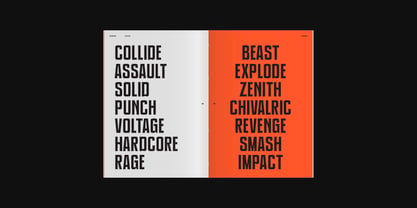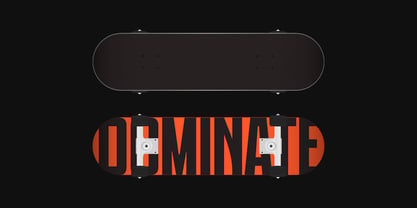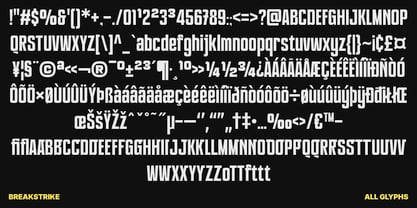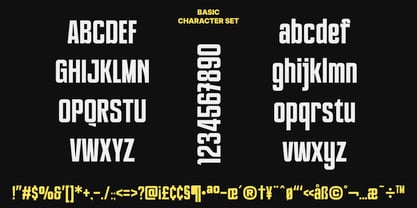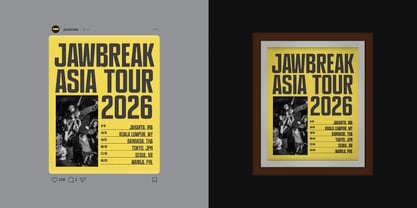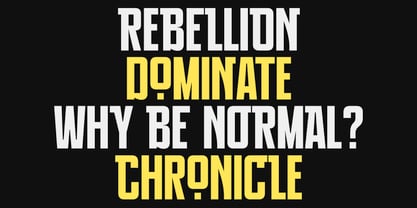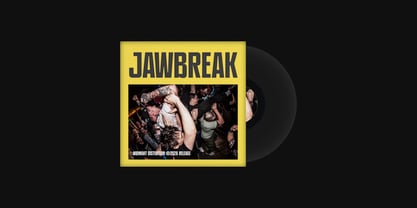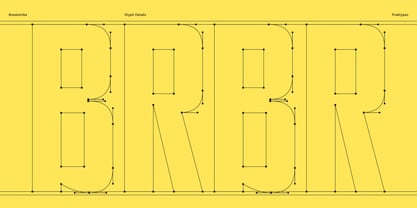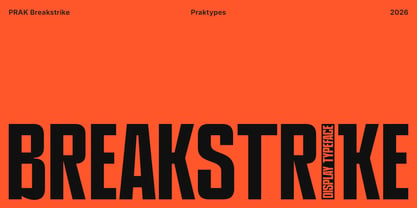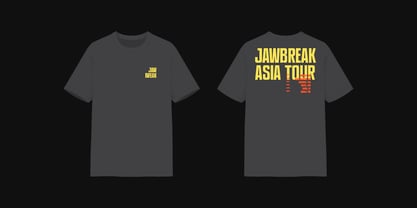
PRAK Breakstrike
by Praktypes
PRAK Breakstrike is a bold condensed display typeface designed by Praktypes for action movie posters and cinematic titles. Built with strong vertical proportions and aggressive geometry, this font delivers high-impact visuals for film titles, taglines, and poster headlines.
Engineered for dominance rather than readability, PRAK Breakstrike is ideal for action, war, crime, and fight-themed visuals that demand intensity and presence.